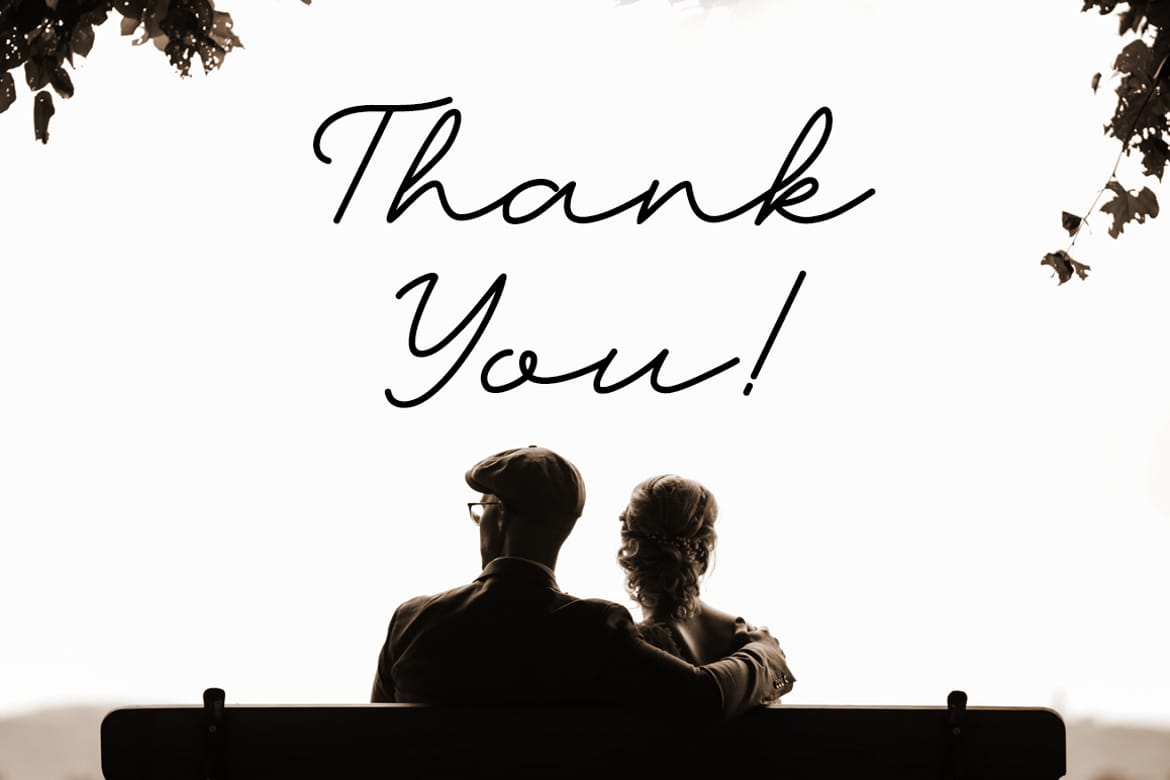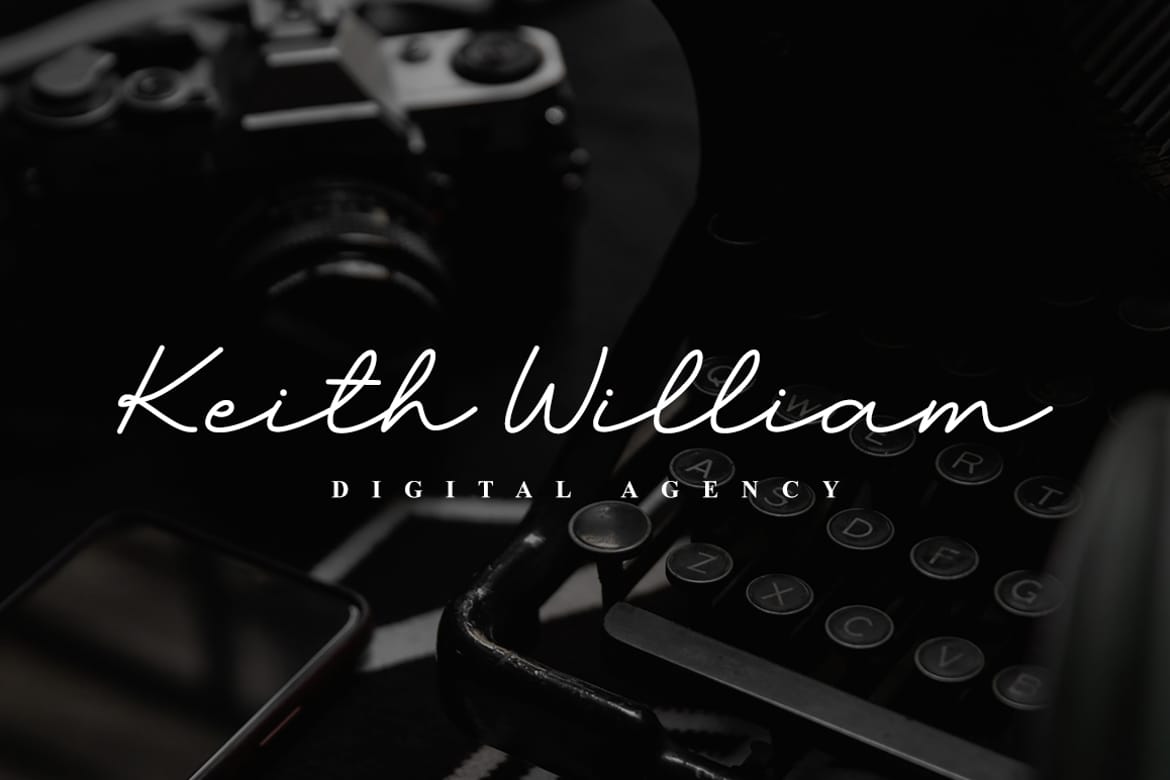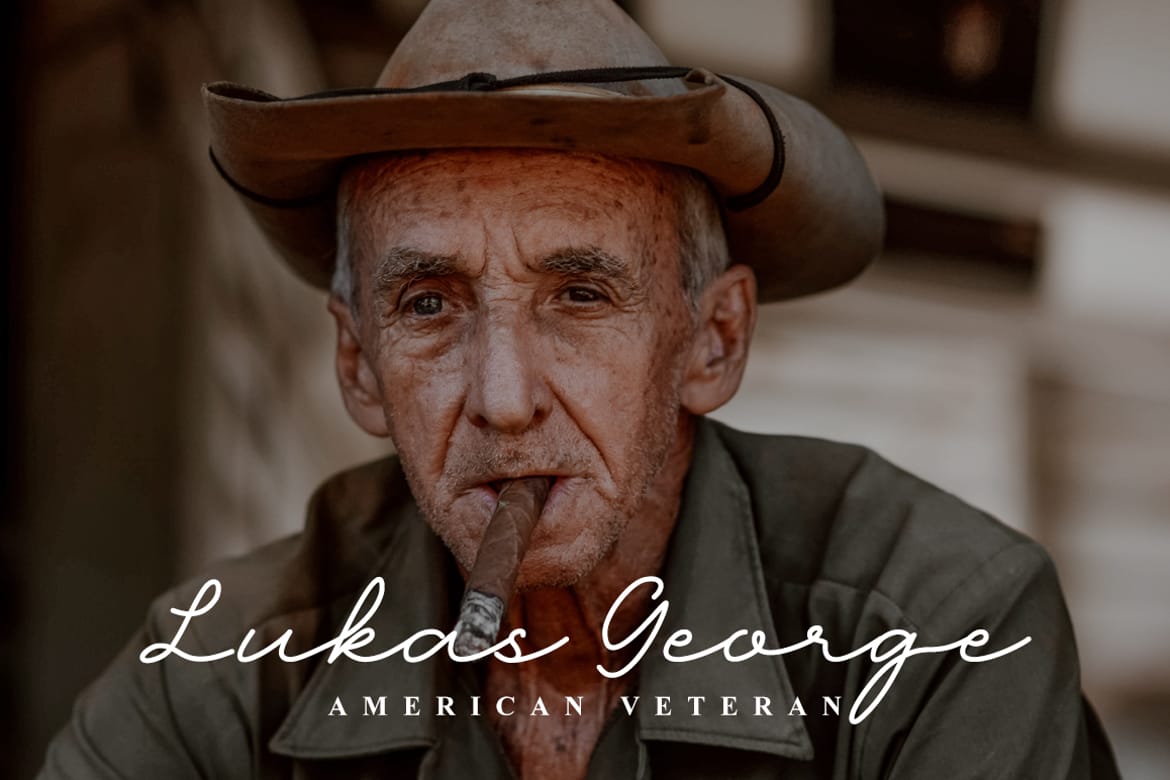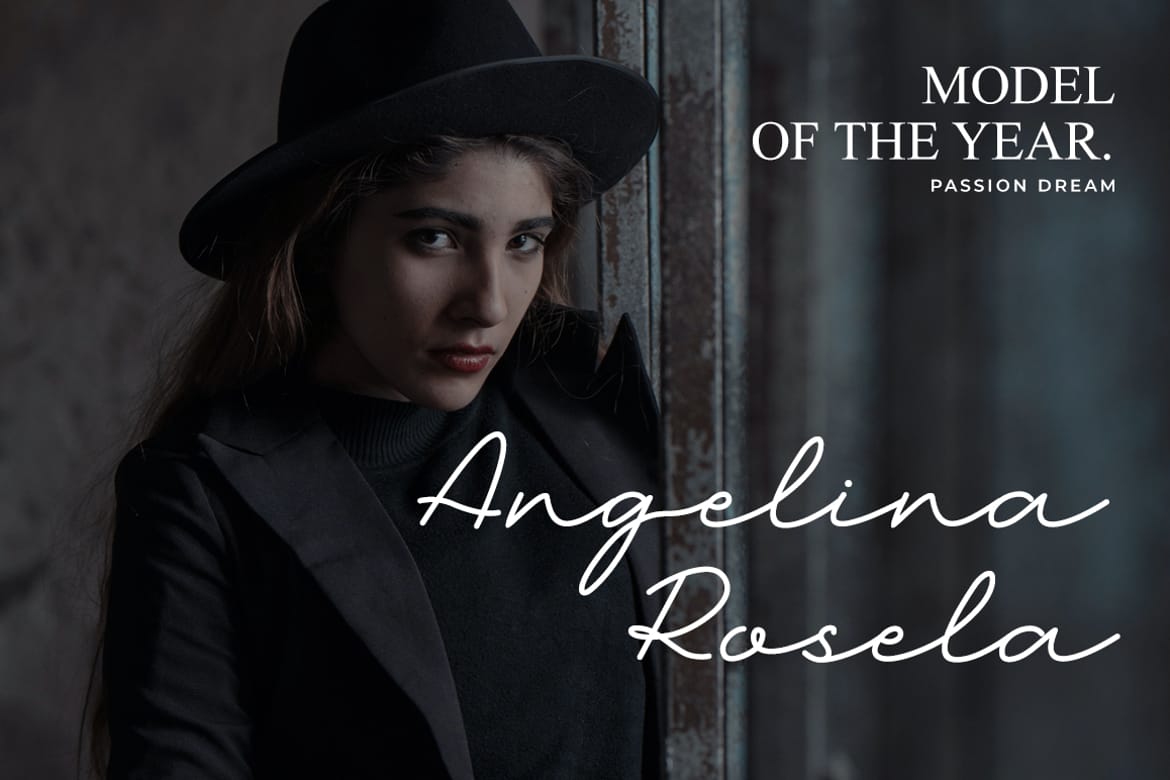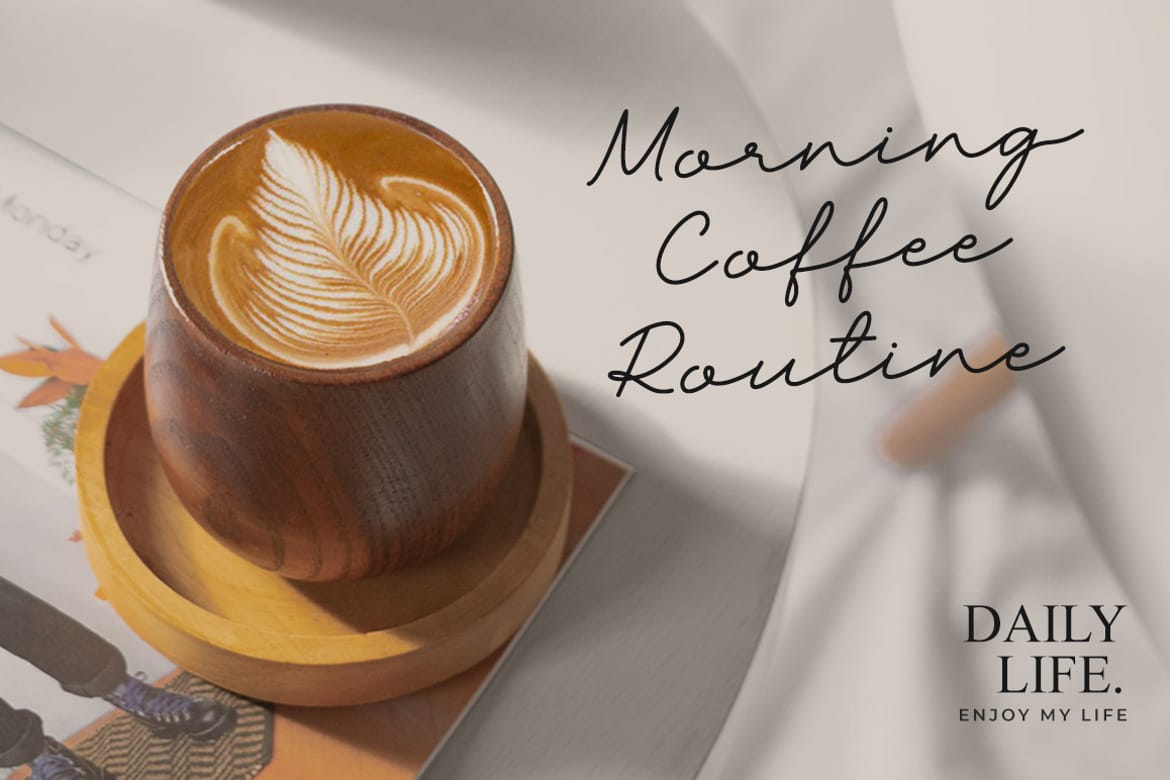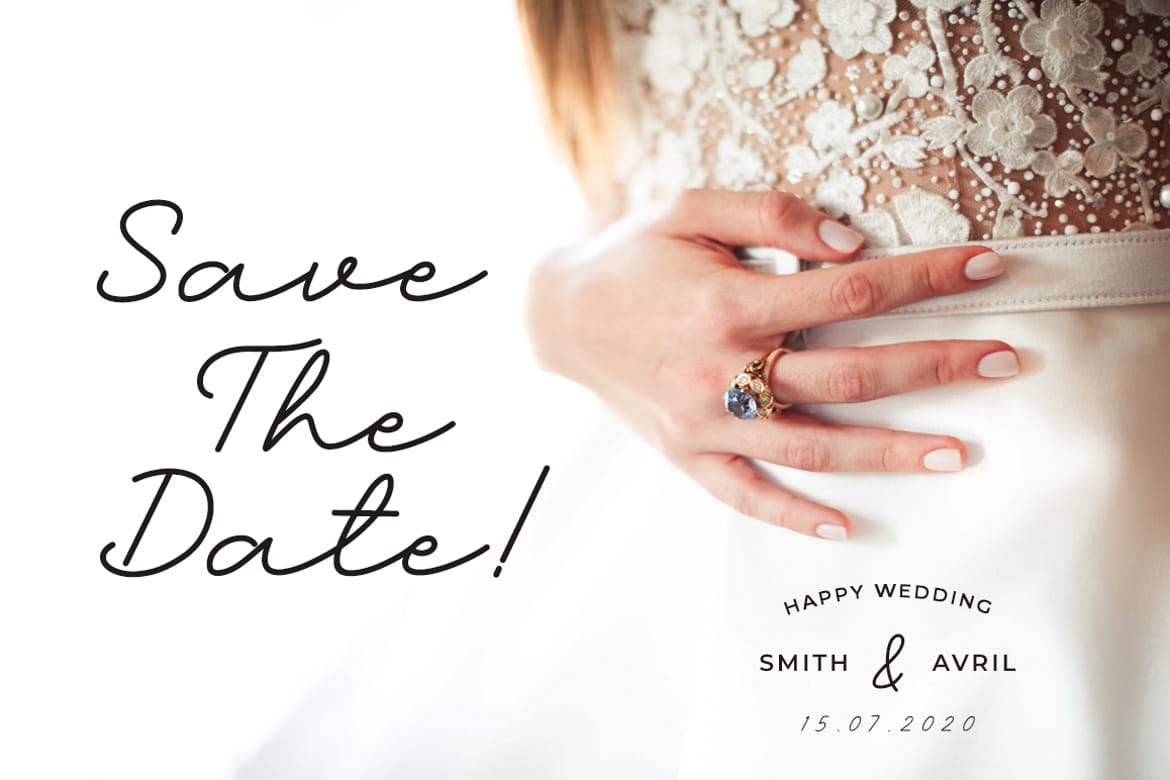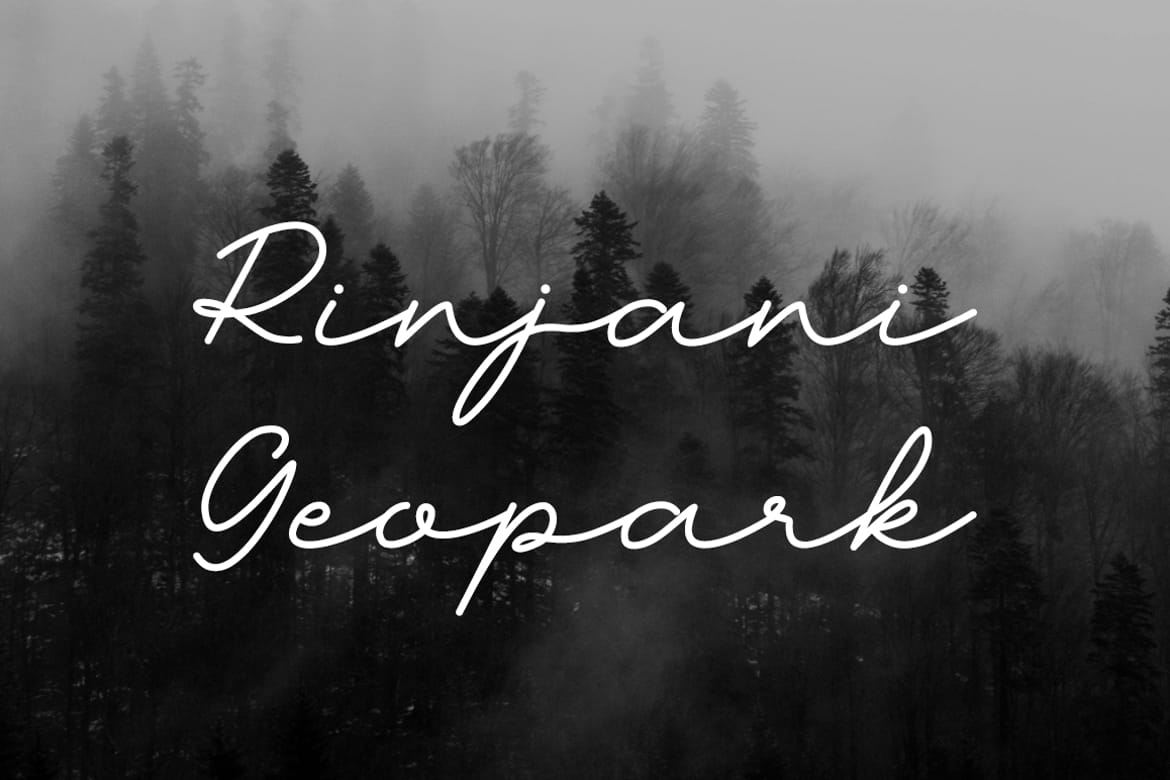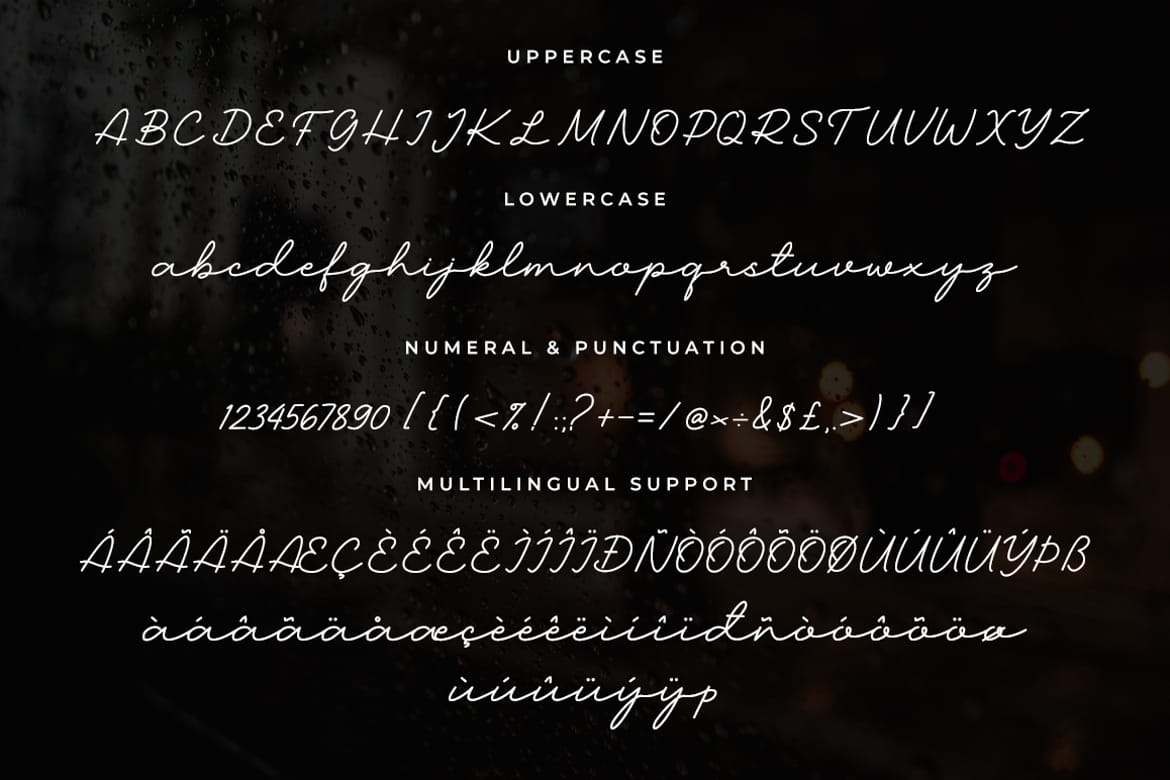
Madore is an elegant handwritten script font that combines modern sophistication with natural flowing strokes. Designed to bring a personal and authentic touch to creative projects, Madore features smooth letterforms, graceful curves, and a stylish handwritten appearance that feels both luxurious and approachable. Its delicate script style creates a refined aesthetic, making it ideal for branding, logos, wedding invitations, social media graphics, product packaging, photography watermarks, fashion editorials, and premium stationery designs.